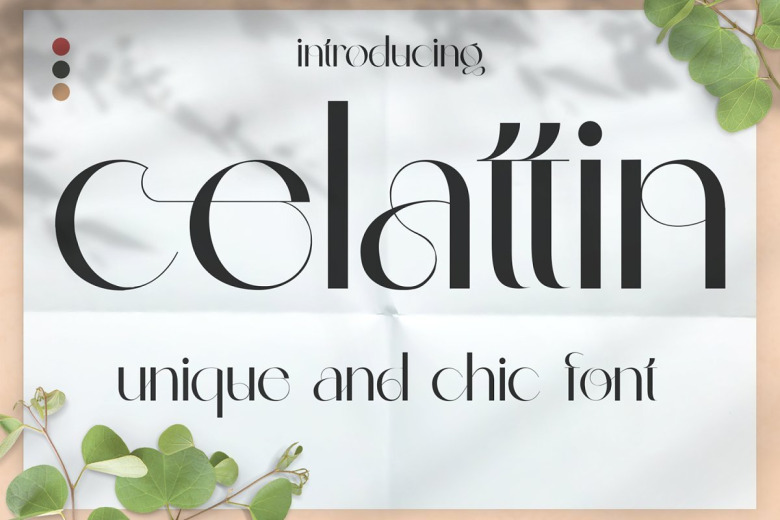
Celattin Font
Celattin Sans Serif Font – is a super unique ligature font that you wont forget! It’s got hundreds of characters and ligatures plus all those European letters! This font is inspired by several typographic designs on social media, which are then created and designed to create a good character font that is easy to use for various graphic design needs.